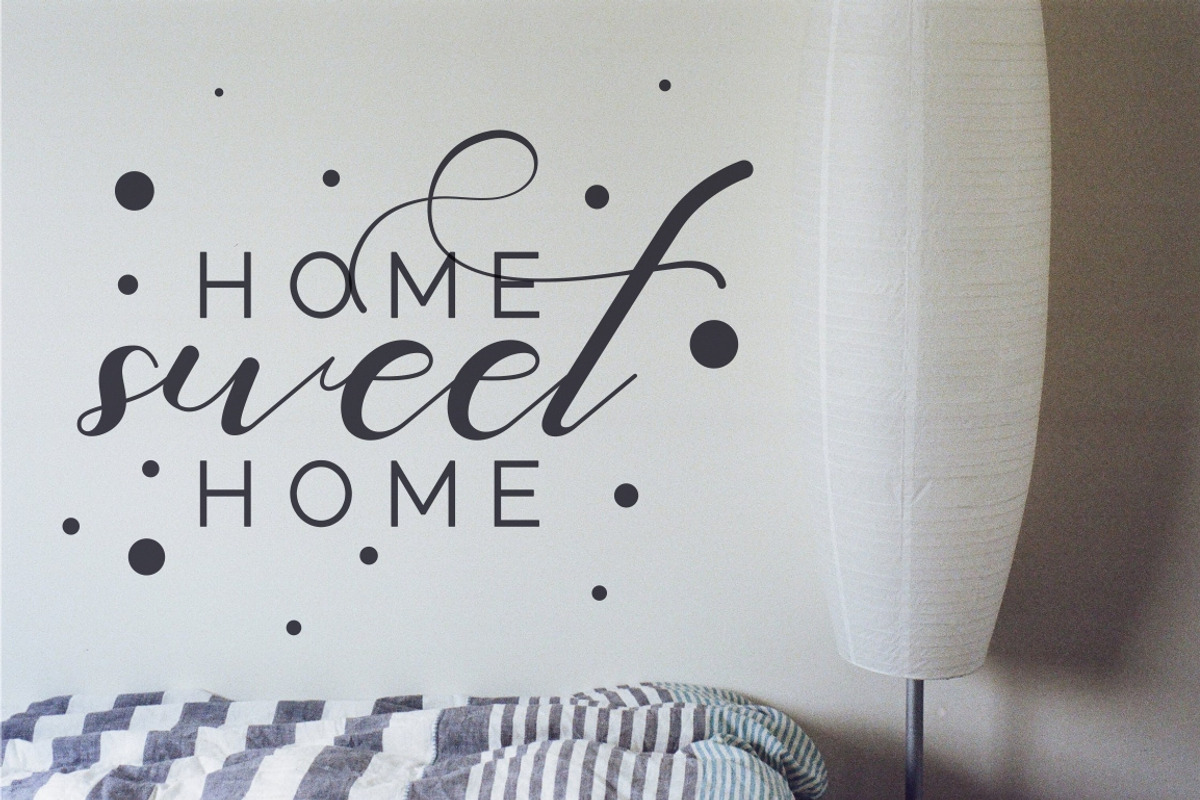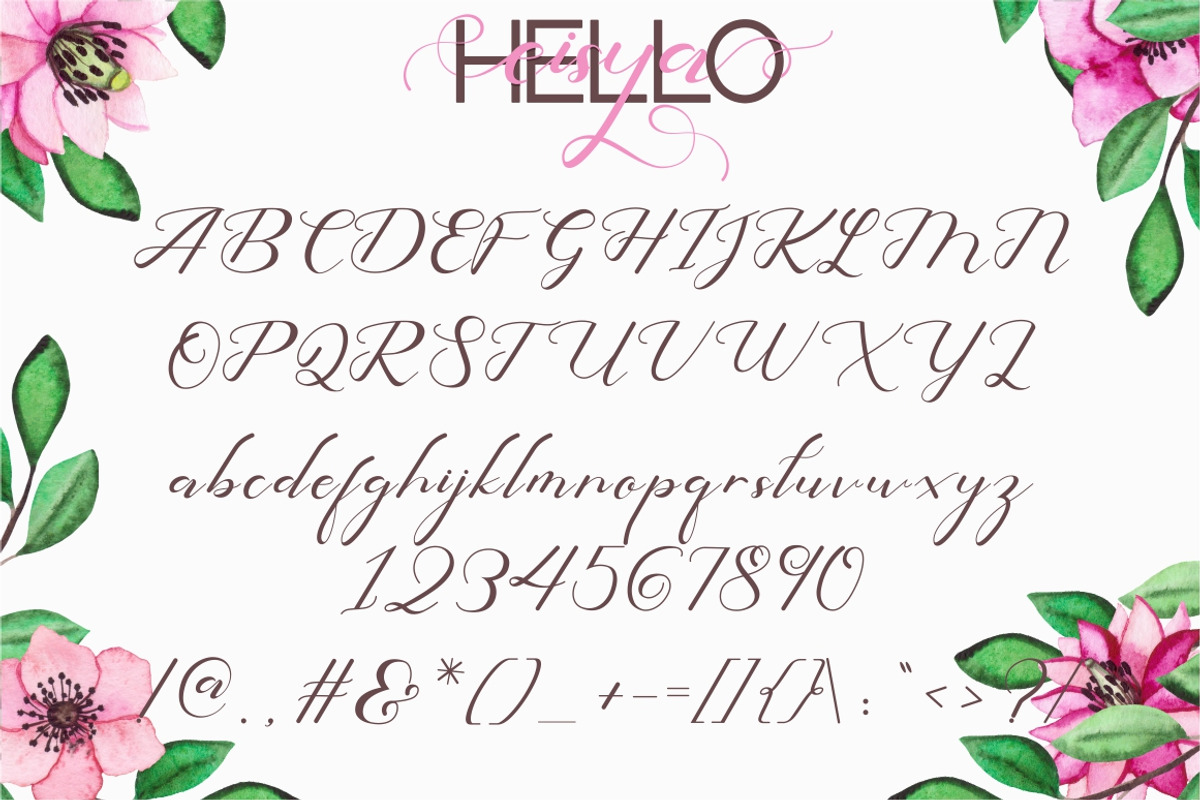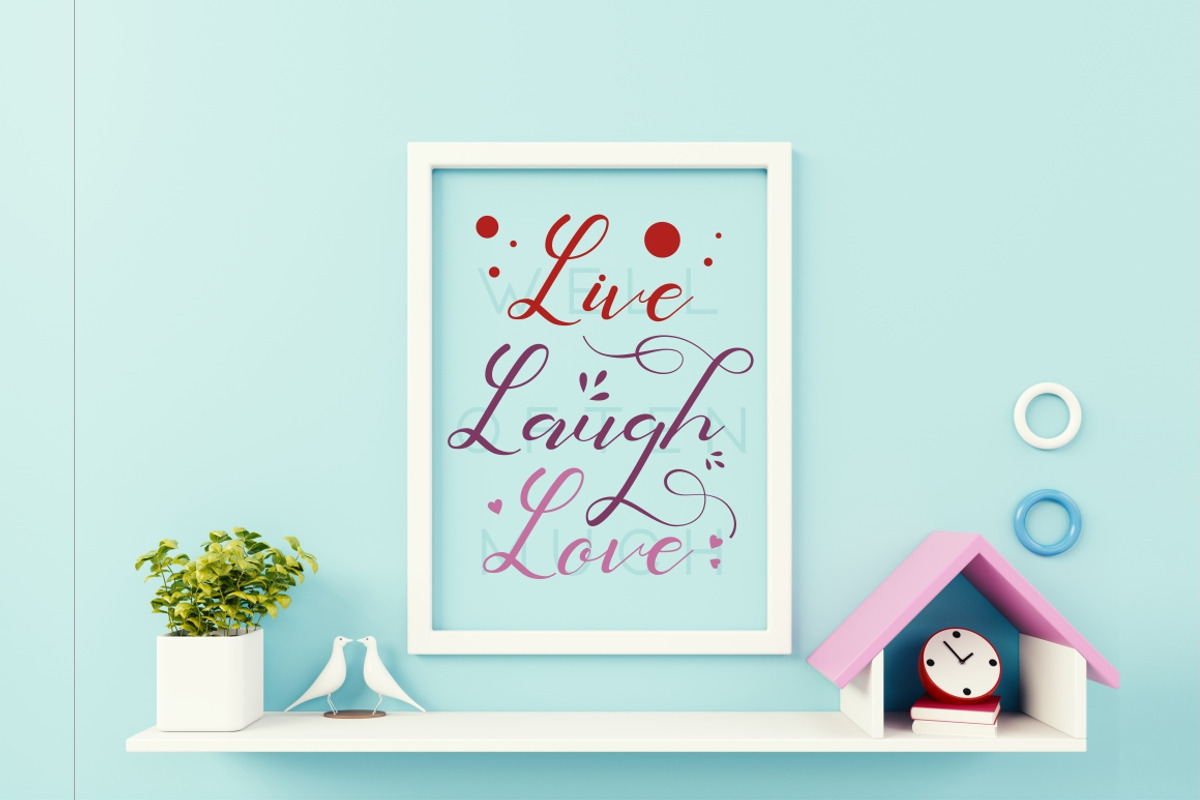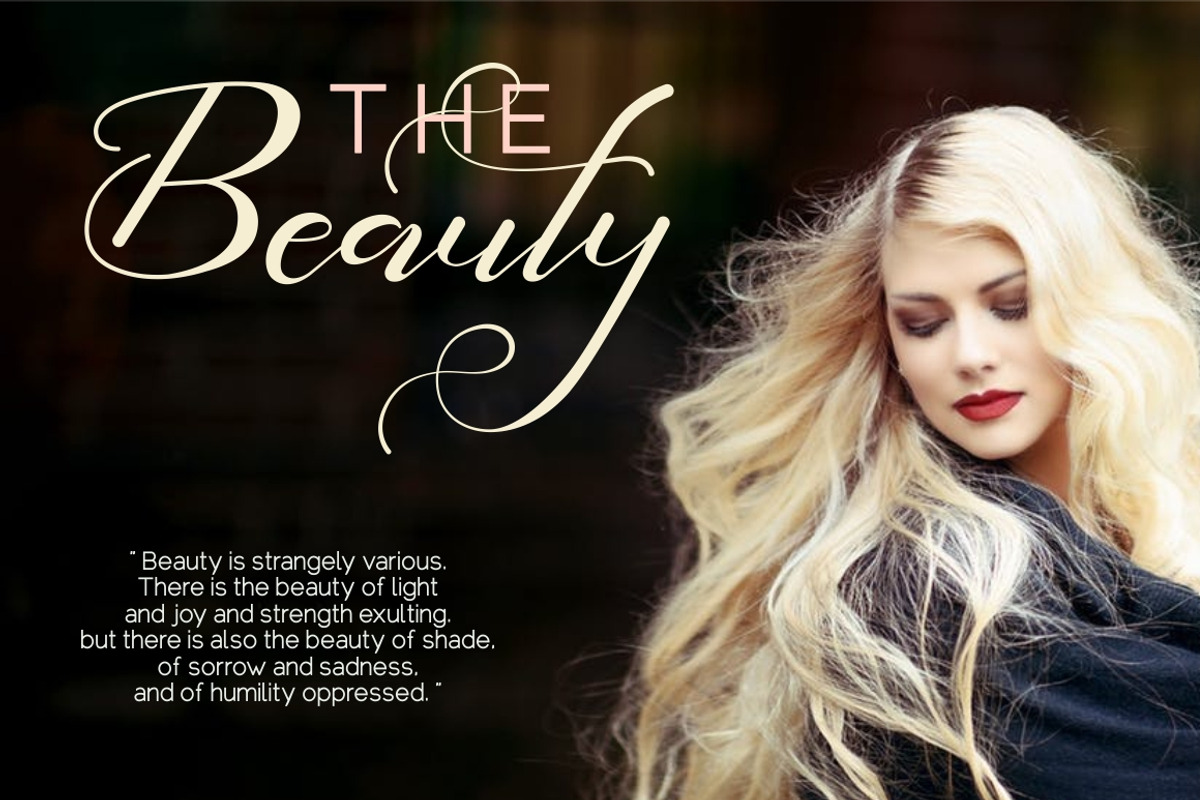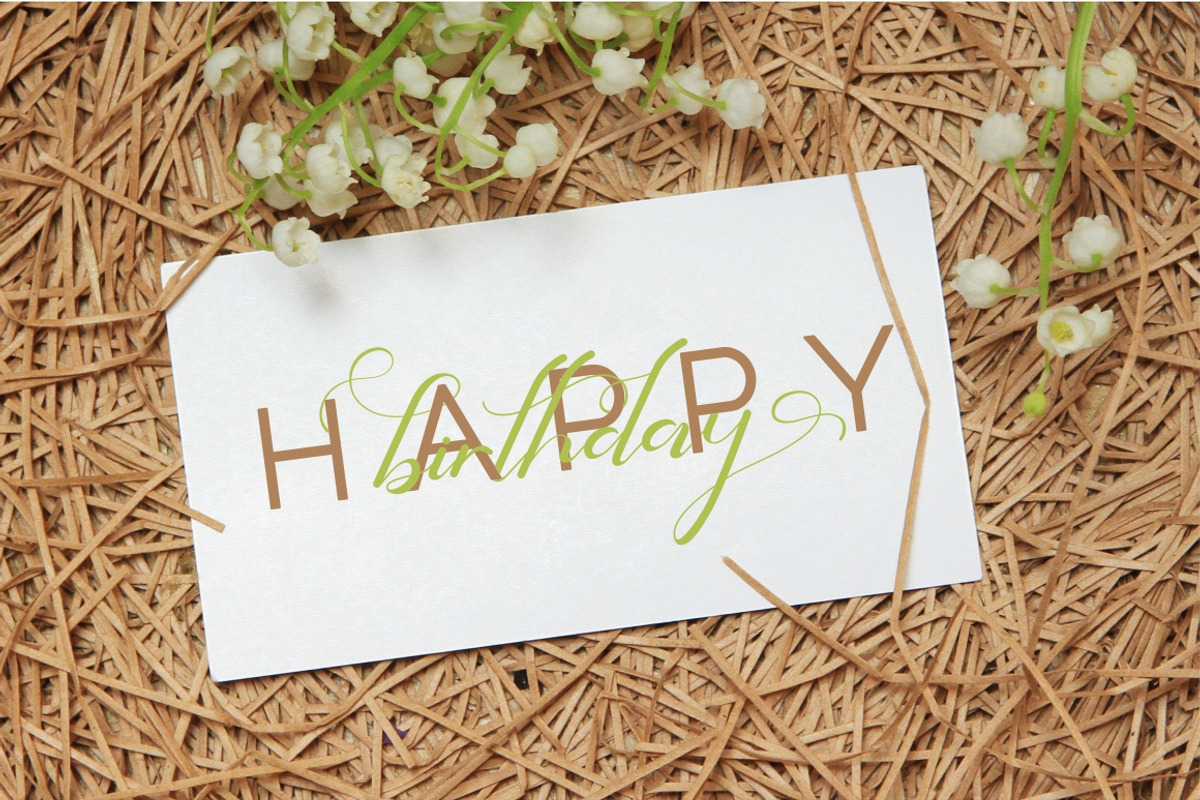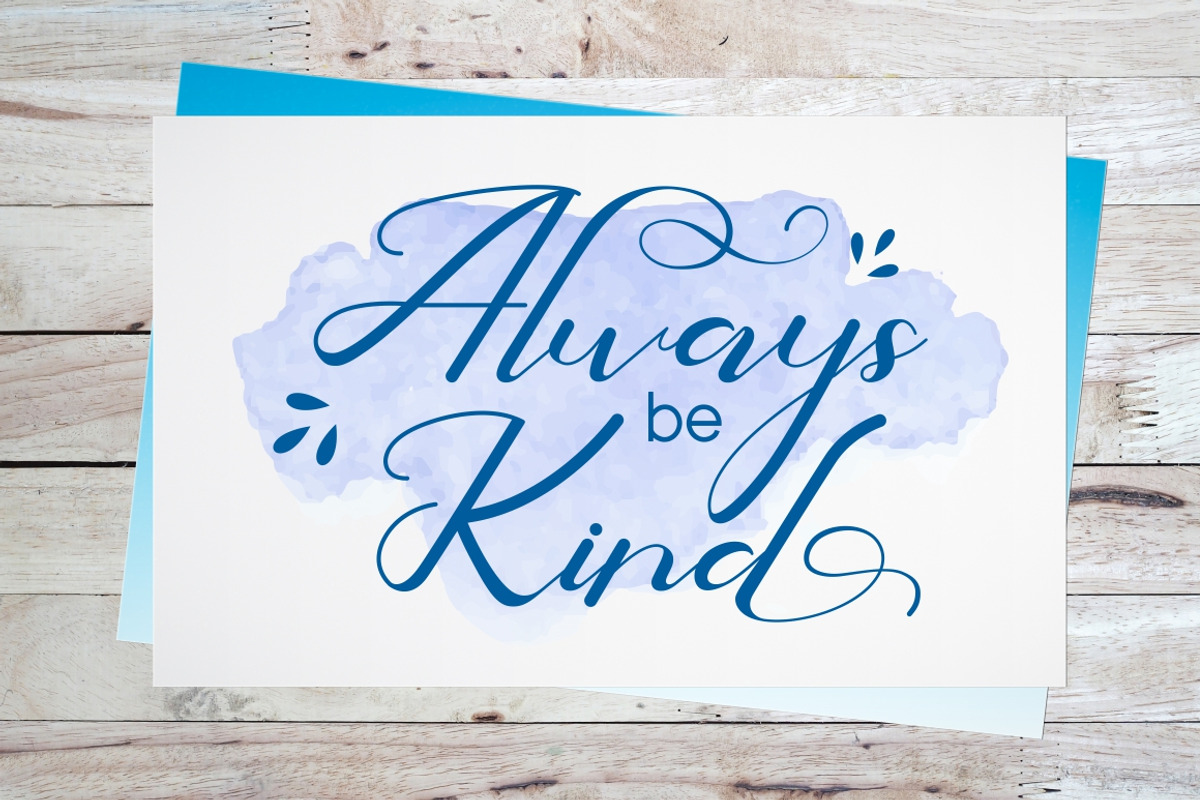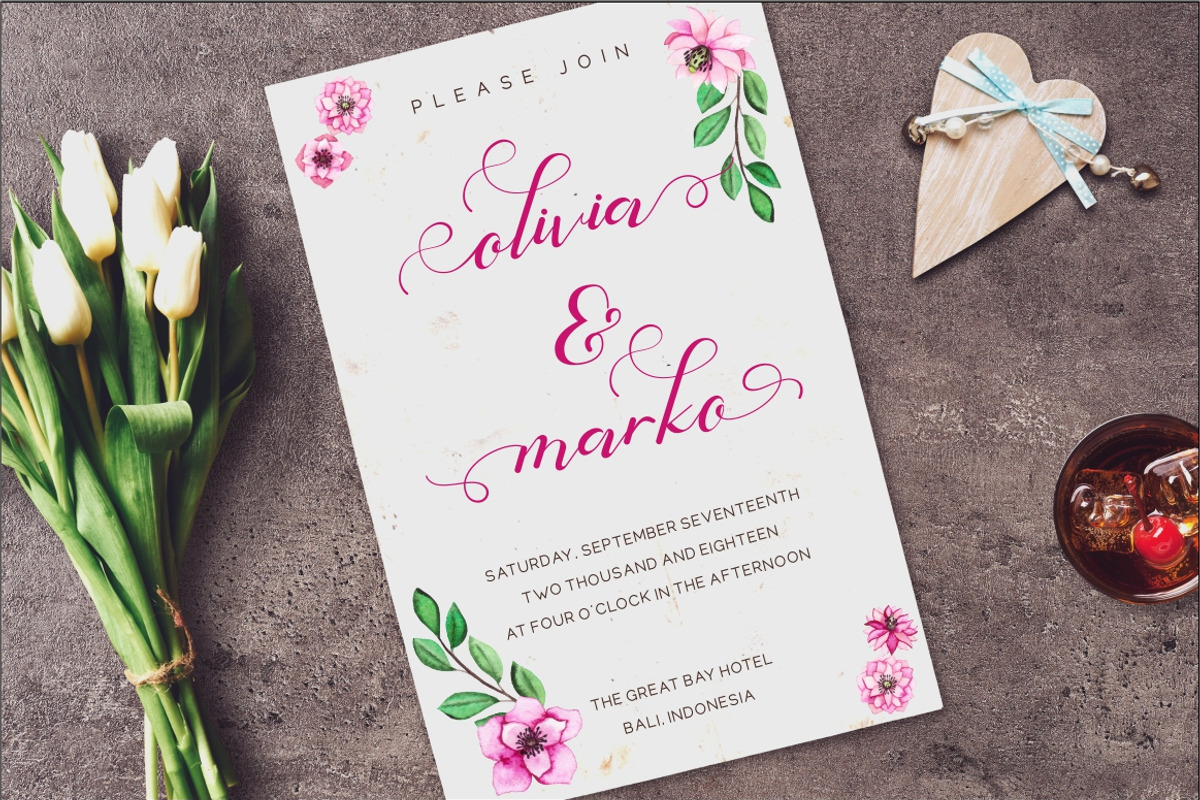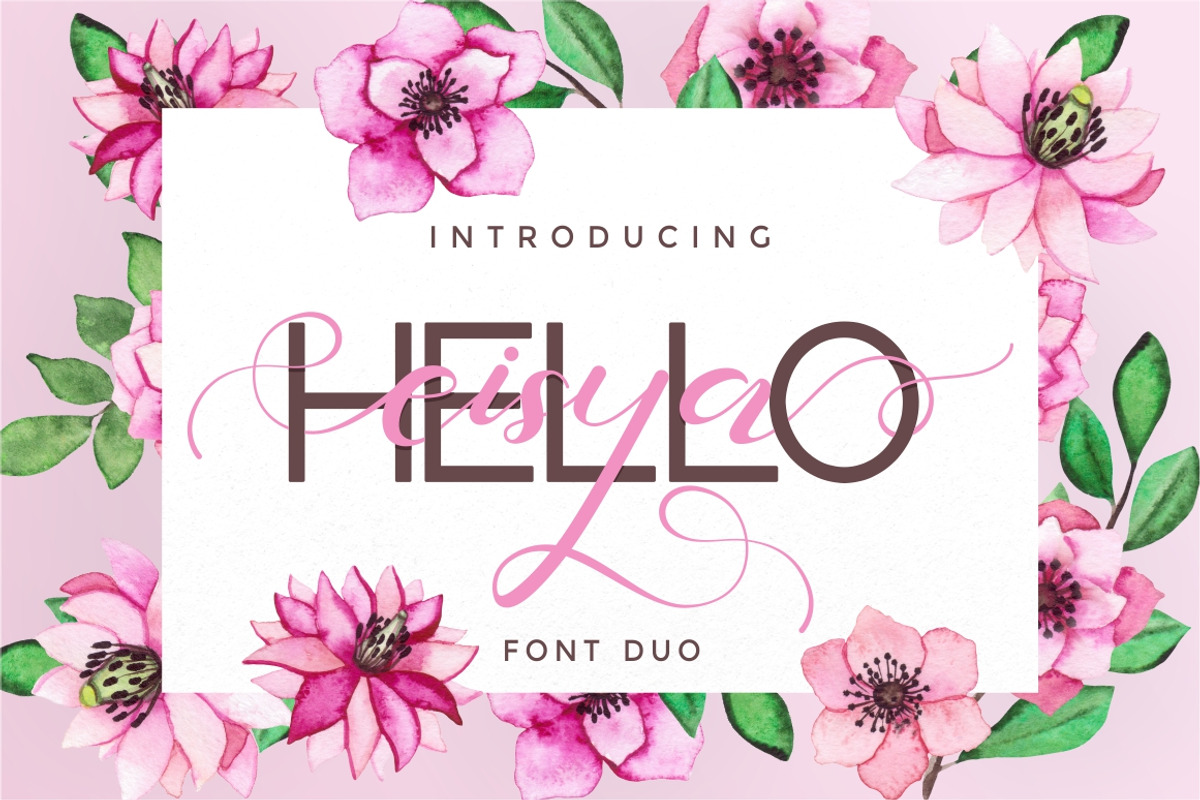
Hello Eisya - Font Duo
Hello Eisya is a beautiful modern sans and script typeface. a perfect pair, can created to mix together. Hello Eisya perfect for branding, wedding invite and card, elegant logo, poster, packaging, stationery, website, and many more.
Come with open type feature with a lot of alternates, its help you to make great lettering. This font is also support multi language. To access the alternate glyphs, you need a program that supports OpenType features such as Adobe Illustrator CS, Adobe Photoshop CC, Adobe Indesign and Corel Draw.